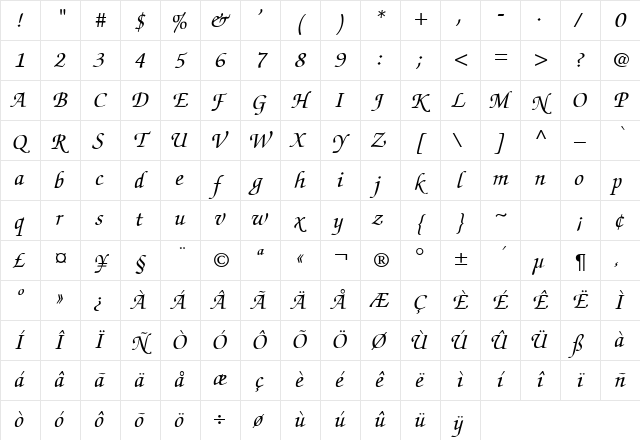
SuggarDB Italic Free Font
SuggarDB Italic
Design Context for SuggarDB
SuggarDB is a composed and adaptable typeface that performs quietly and consistently across a wide range of design contexts. The slanted form adds forward momentum and visual energy.
Pro Tip: Use SuggarDB for emphasis, pull quotes, and subheadings where its slanted energy can add rhythm to the layout.